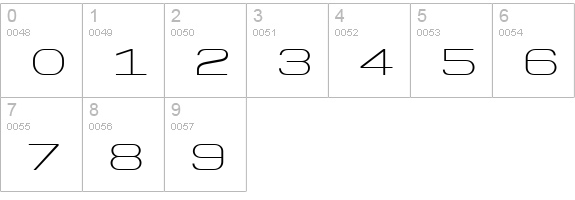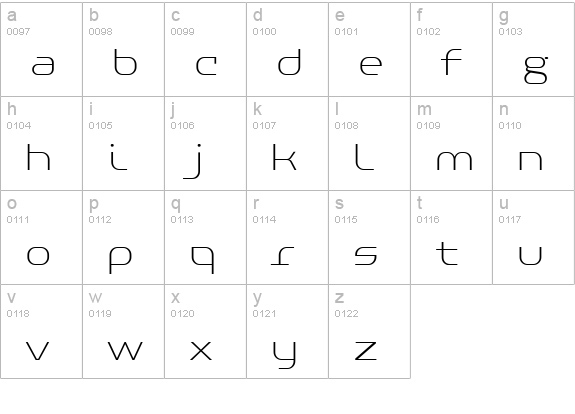
PFBaselinePro-Thin Font Details
PFBaselinePro-Thin is a delicate, low-contrast variant in the PFBaselinePro typeface family \xE2\x80\x94 well suited to fashion editorial, minimal branding, and high-contrast display.